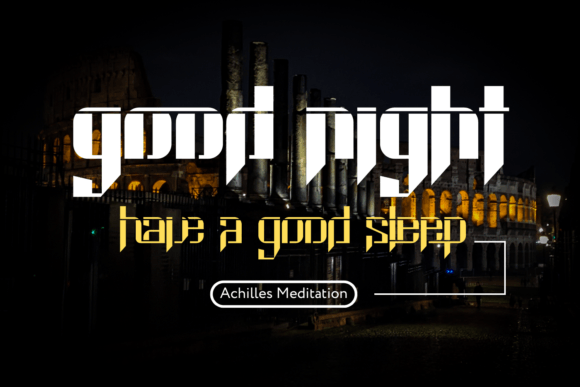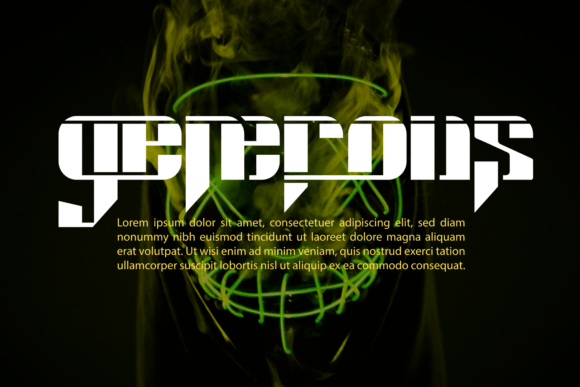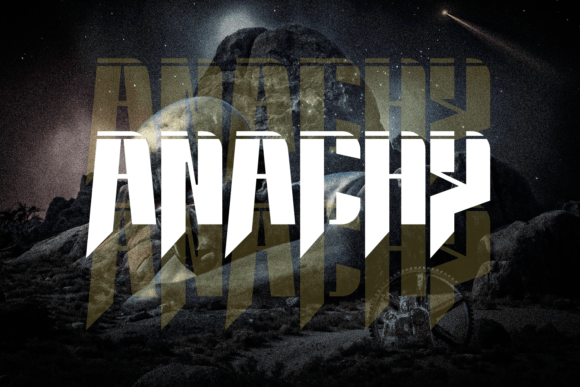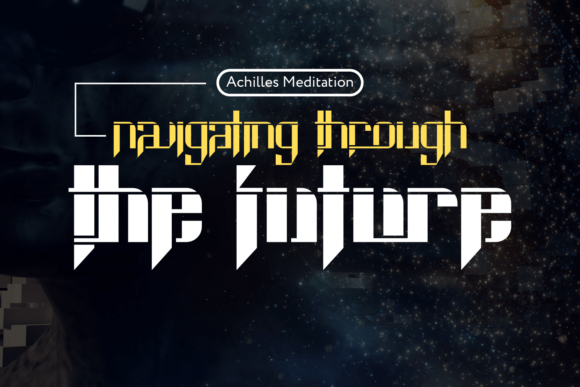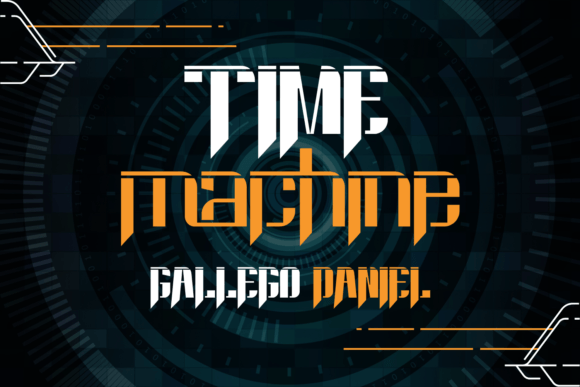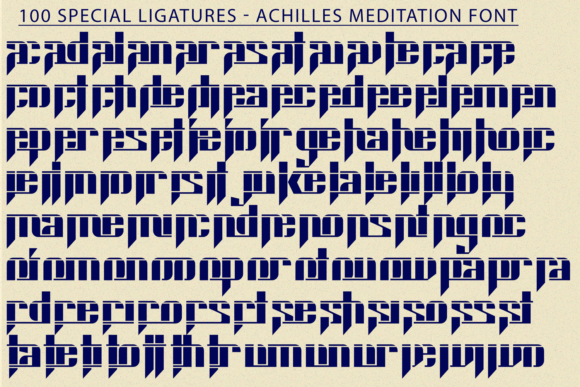
The Ultimate Display Font for Bold Designs: Achilles Meditation Font
Have you ever been in the middle of a design project, and suddenly, you’re stuck on finding the perfect font? I recall a recent experience where I was working on a logo for a sports brand, and I just couldn’t find a font that conveyed the right amount of strength and dynamism. That’s when I stumbled upon Achilles Meditation Font, and it completely transformed my design. In this article, we’ll dive into the world of Achilles Meditation Font, exploring its features, uses, and everything in between.
A Personal Review: What I Love About Achilles Meditation Font
So, what makes Achilles Meditation Font so special? Here are some of the things I love about it:
- ✨ Bold and Authentic: Achilles Meditation Font is a bold and authentic display font that exudes strength and confidence.
- ✅ Highly Versatile: Whether you’re designing a logo, creating sports-themed graphics, or crafting the name of a superhero, this font is up to the task.
- 🔥 Inspired by Action Movie Posters: With its inspiration from action movie posters and Knights in the Night theme, this font is perfect for creating dynamic and eye-catching designs.
- 💻 PUA Encoded: The font is PUA encoded, making it easy to access all the amazing glyphs and ligatures.
While Achilles Meditation Font is an excellent choice for many design projects, there are a few things to keep in mind:
- 🤔 Limited Use Cases: Due to its bold and dramatic nature, this font might not be the best choice for body text or more formal designs.
- ⚠️ Glyph Overload: With so many glyphs and ligatures available, it can be overwhelming to navigate and choose the right ones.
The creator of Achilles Meditation Font drew inspiration from the world of action movies and medieval knights. The goal was to craft a font that would evoke the sense of strength, speed, and heroism found in these themes. The result is a font that’s both bold and authentic, perfect for making a statement in your designs.
| Font Name | Achilles Meditation Font |
| Author | 177Studio |
| What is Achilles Meditation Font? | Achilles Meditation Font is a bold and authentic display font inspired by action movie posters and Knights in the Night theme. |
| Is Achilles Meditation Font PUA encoded? | Yes, Achilles Meditation Font is PUA encoded, making it easy to access all the amazing glyphs and ligatures. |